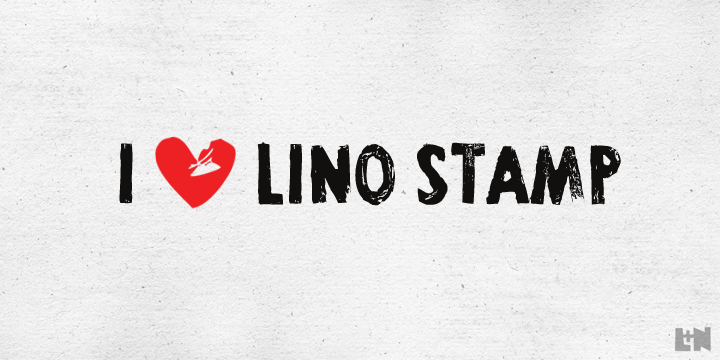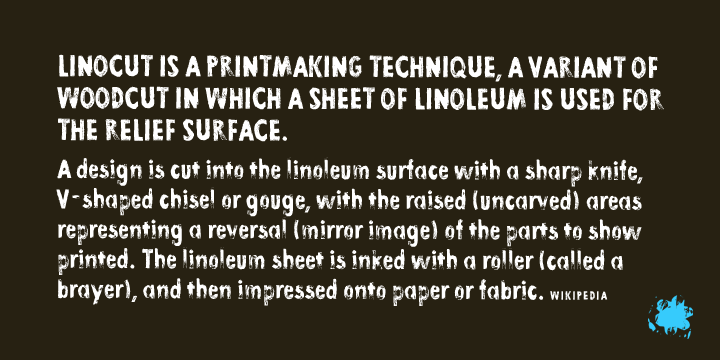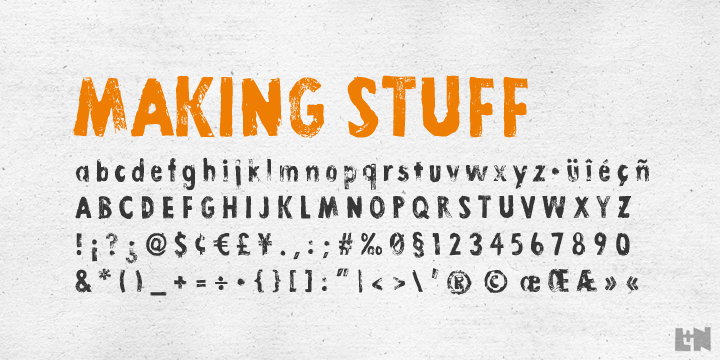
Lino Stamp
Font Family by Letters & Numbers
Lino Stamp is a geometrical, sans-serif typeface. To produce it, letters were carved into linoleum, inked and impressed on paper ? giving a worn and distressed finish. Lino Stamp works particularly well for headings, short paragraphs and scrapbook-style designs. It was inspired by Futura Bold Condensed.